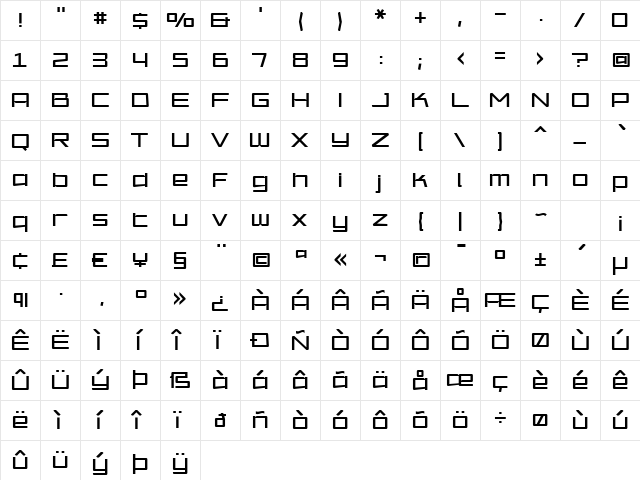
Amp Regular Font Preview
Amp Regular
Design Context for Amp Typeface
Amp takes a measured approach to typography — its balanced proportions and neutral character make it a reliable workhorse for both digital and print work.